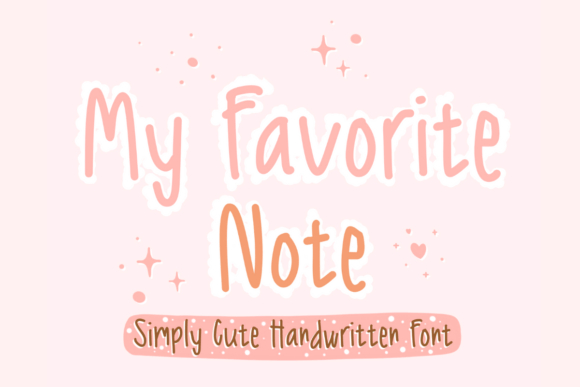
My Favorite Note: A Playful Script for Editorial Design
Where to Use My Favorite Note
“My Favorite Note” shines best in areas where a display font can add visual interest without competing with the main content. It works exceptionally well for titles, chapter openers, pull quotes, and decorative accents. For instance, in a wedding guide, using it for the cover text created a nostalgic, handcrafted feel that resonated with the audience. Similarly, in a printable planner, it added a personal touch to the headings without clashing with the clean, functional layout.Design Assets and Commercial Use
“My Favorite Note” is more than just a font—it’s a storytelling element that adds warmth and personality to editorial design. It’s a thoughtful choice for those who want to create a connection between their content and their audience. With its natural flow, expressive character, and adaptability, it’s a font that deserves a place in the arsenal of any blogger, publisher, or editorial designer.